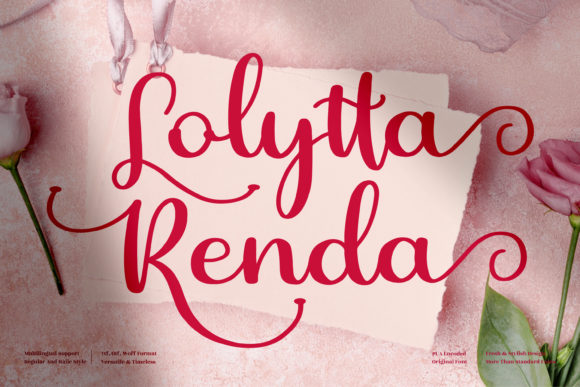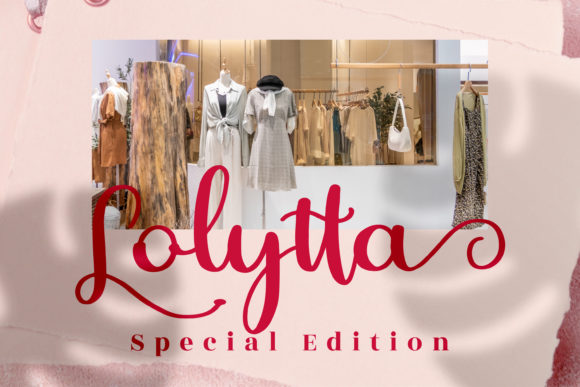
About Lolytta Renda Font
Lolytta Renda is a chic, refined script font that emanates sophistication and elegance. Its stylish alternates and ligatures make this font the perfect match for any project.